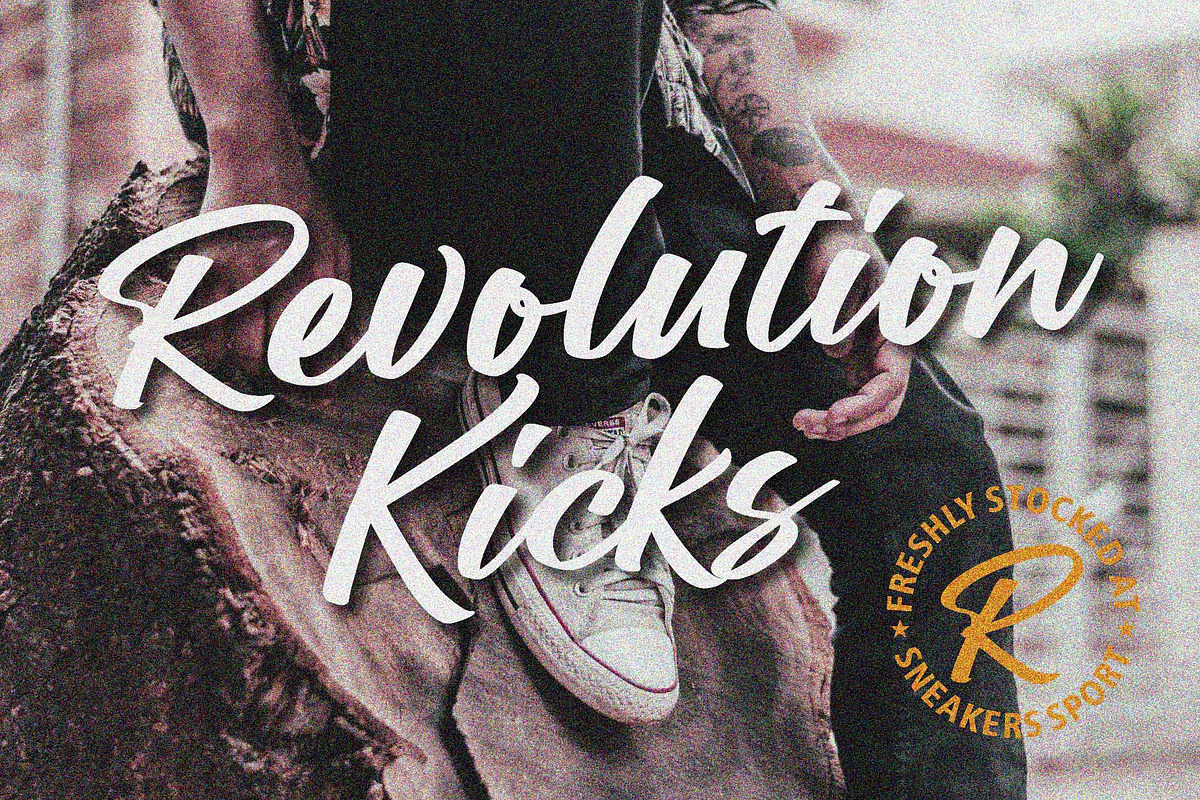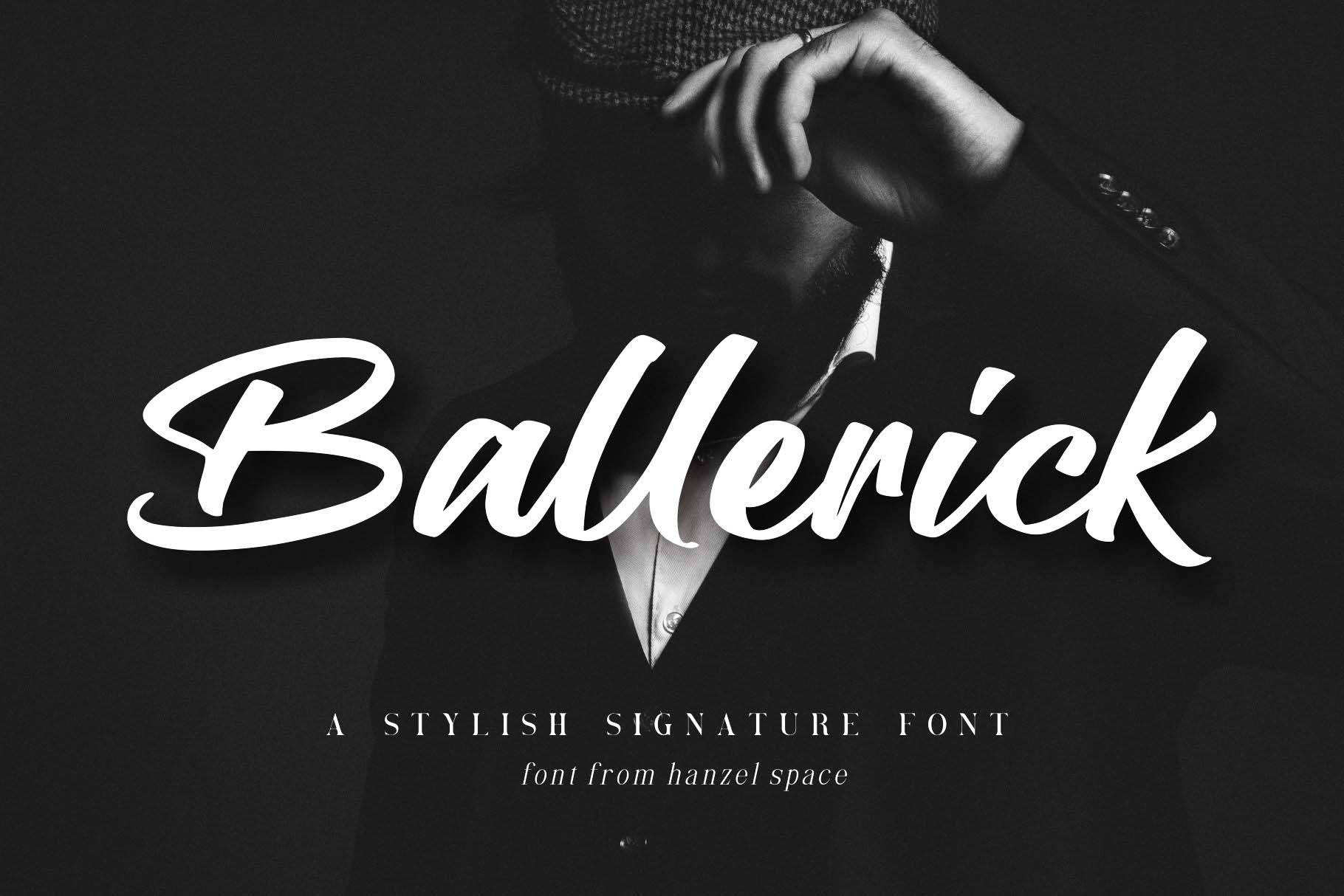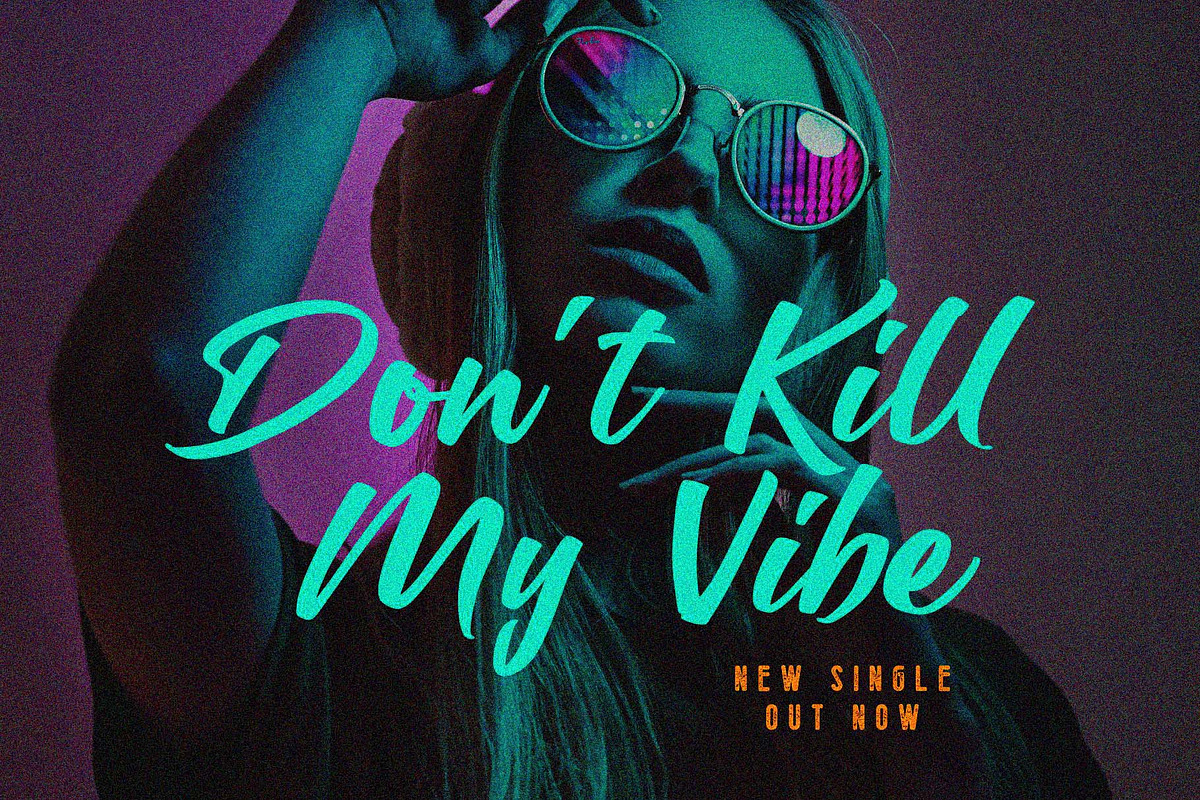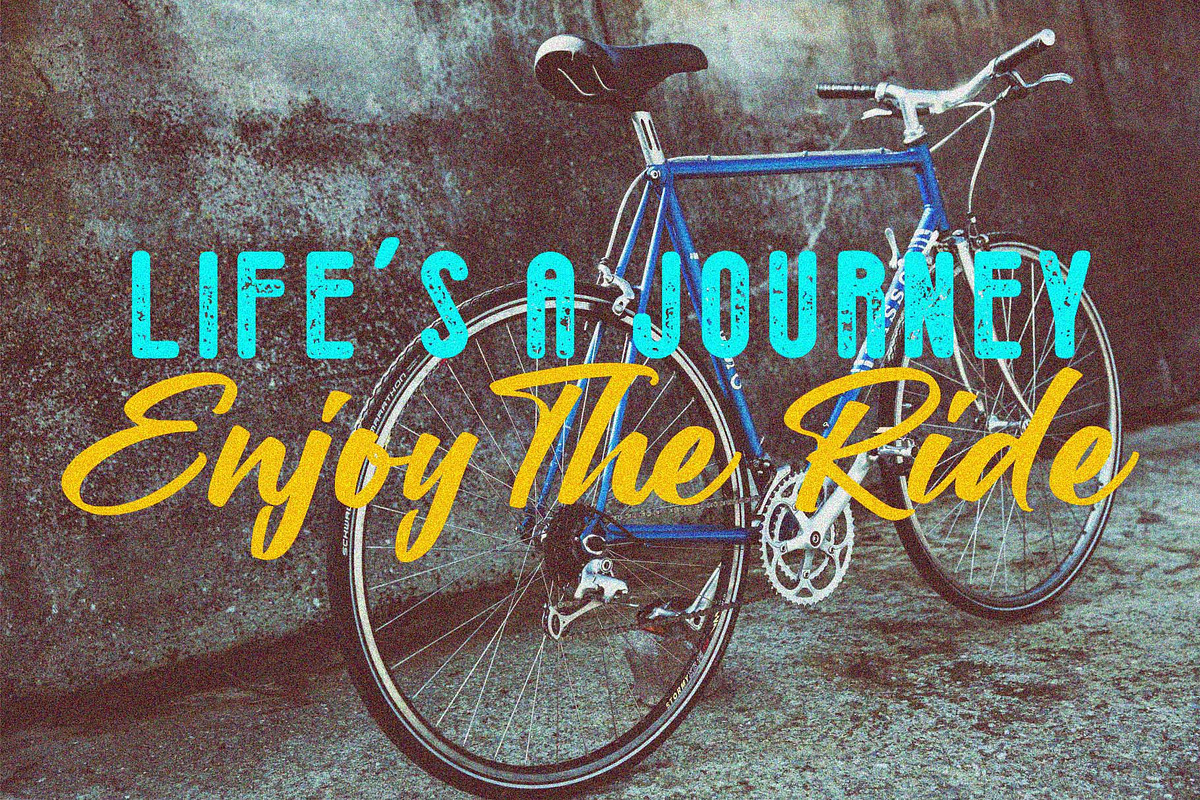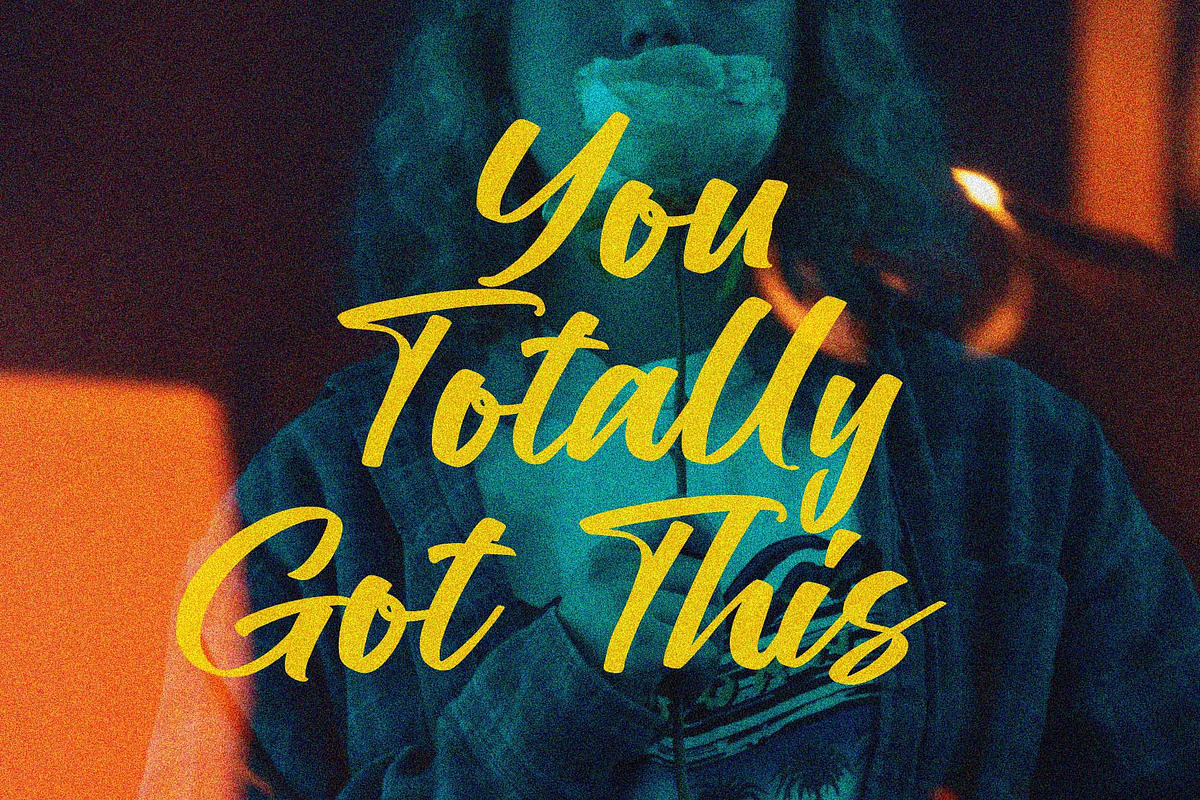
Ballerick Script Font
Ballerick script font.
This font is perfect for modern projects, headings, blogs, logos, brandings, tagline, invitations and more!